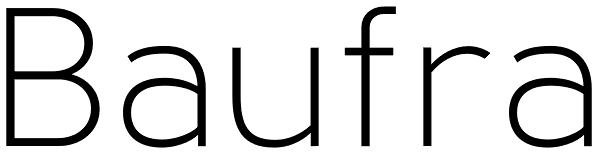
Baufra
Baufra is a humanist sans-serif typeface. It is based on the sans-serif typefaces of the early 20th century. A characteristic feature of Baufra is its geometric design combined with an earthy naturalism. Baufra family includes 6 weights, 435...